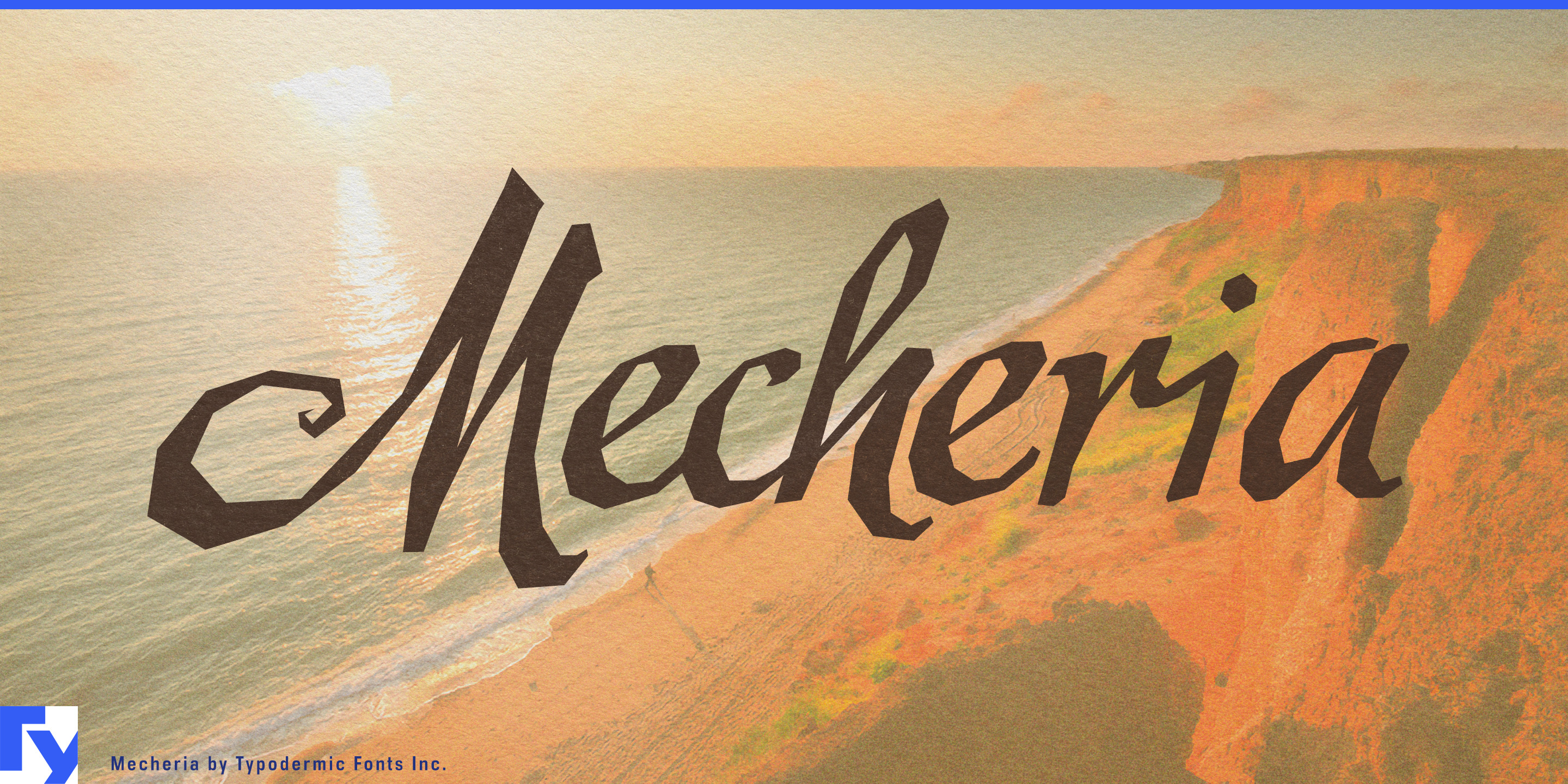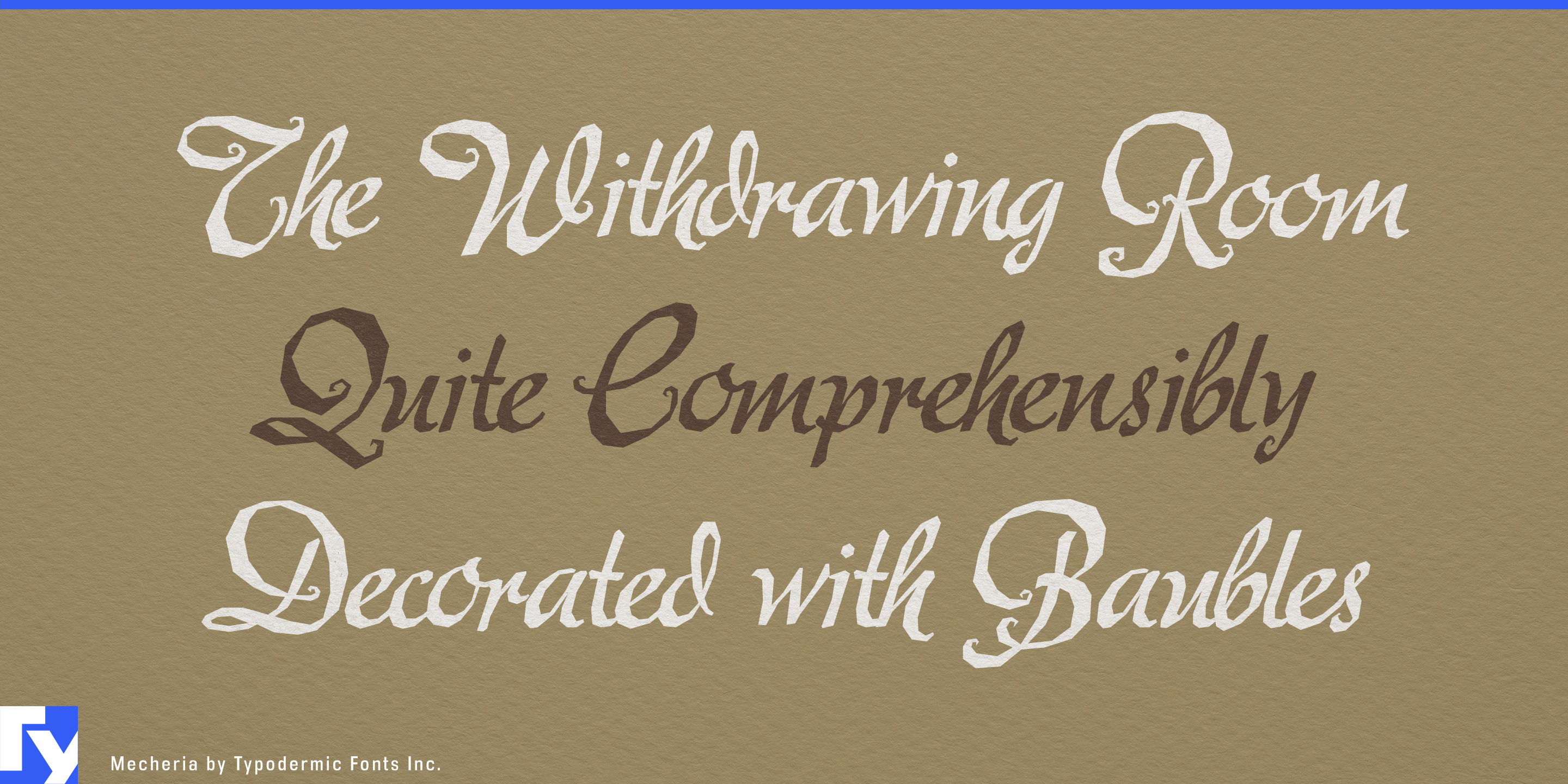
Mecheria
Mecheria is a script typeface that carries the scent of parchment, the shadow of candlelight, and the tactile pull of hand-cut paper. Its jagged strokes and smooth curves work in quiet opposition, each letter dancing between elegance and unease. This is not the pristine polish of a faithful revival—it’s an interpretation with grit, crafted to feel alive on the page.
Born from the bones of a 1939 classic, Mecheria trades strict historical accuracy for texture and tension. Its angular connections and dramatic swashes create a rhythm that draws the eye, perfect for telling stories steeped in romance, mystery, or history. Picture it titling a period drama, gracing the spine of a historical novel, or setting the mood for a boutique crime anthology.
That same character makes it a natural fit for artisan products—packaging that wants to whisper of heritage and handcraft. Boutique perfumeries, dark chocolate bars wrapped in rich paper, or small-batch teas can all borrow its air of intrigue. Travel campaigns, especially those evoking the layered histories of coastal towns, desert outposts, or old market cities, will find its voice equally compelling.
Mecheria doesn’t just set words—it frames them in a story. If you want your design to feel like it’s been lived in, with a past that’s as important as its present, this script will carry that weight beautifully.